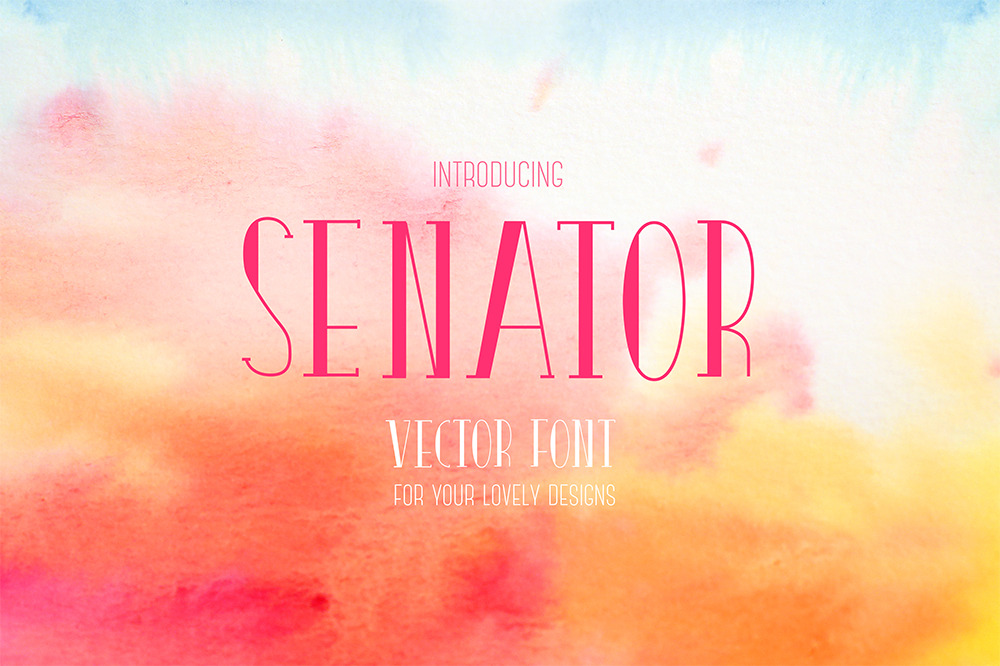
Senator - vector font
This typeface designed to help you to decorate cards, photos, and web design elements.
This font will be coming out soon as a typeface.
Enjoy the creative process with this vector font :)